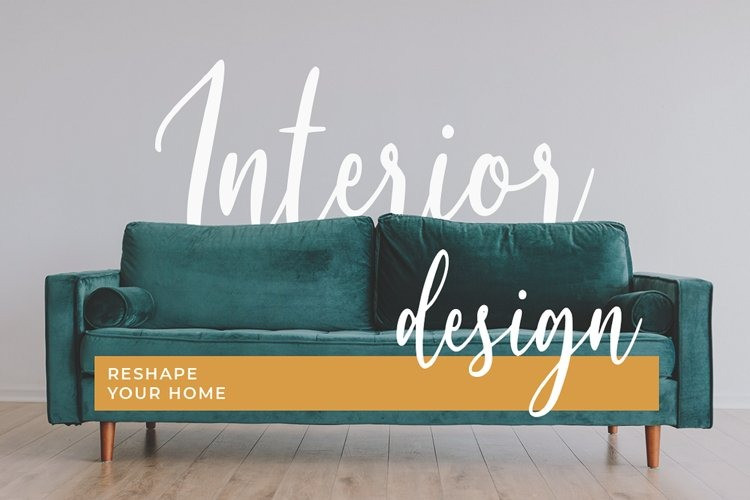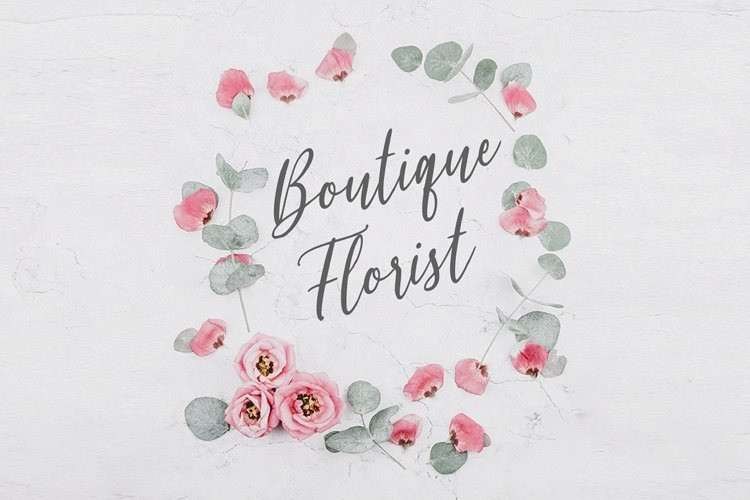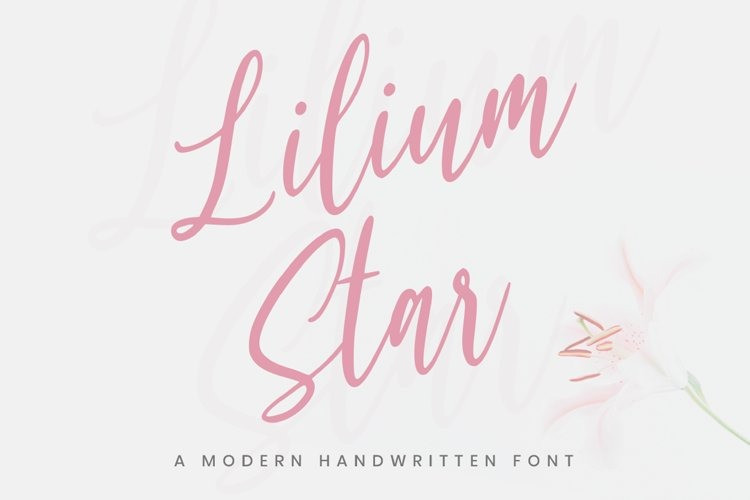
Lilium Star Script Font
Lilium Star Script Font by Graphue 14,401 downloads
Lilium Star Script Font
Introducing Lilium Star – A Modern Handwritten Font.
With every hand-drawn stroke and curve, Lilium Star will delight and add brightness, modernity and elegance to wherever it is placed. Impress your wedding guests with gorgeous invitations using Lilium Star. Why not create more engaging content and inspire your audience and clients?
This Modern Handwritten font is also perfect for headings, logos, business cards, printed quotes, cards, packaging, and your website or social media branding.